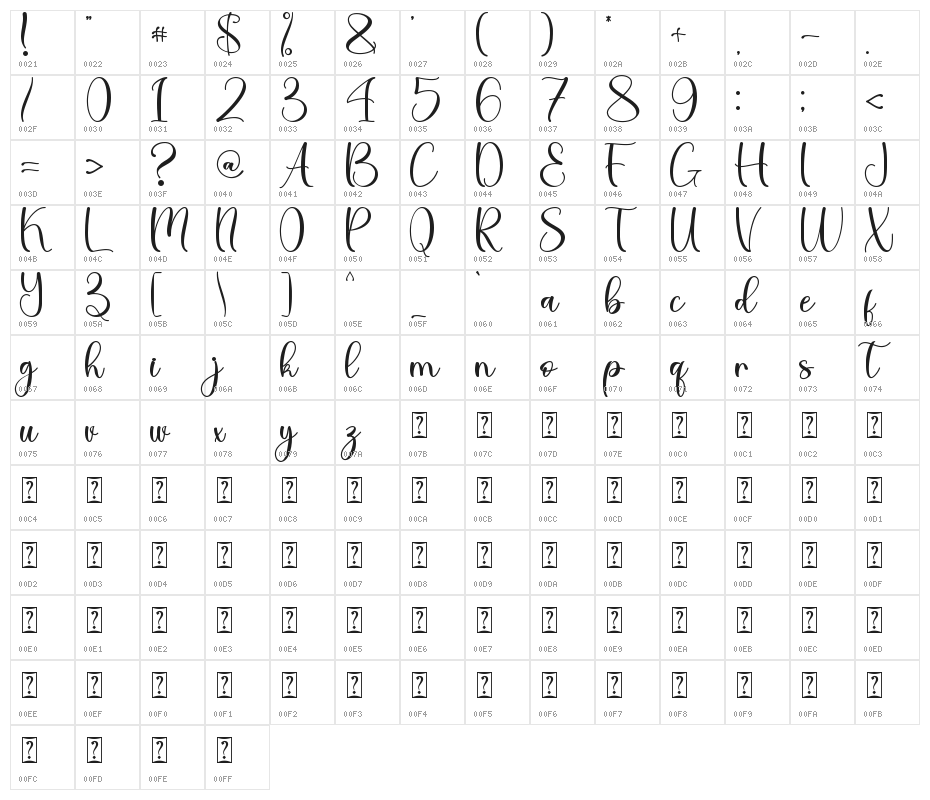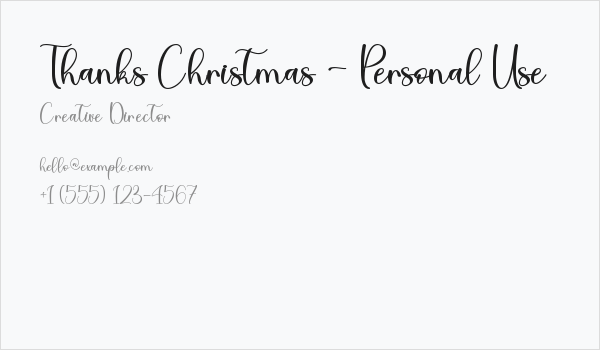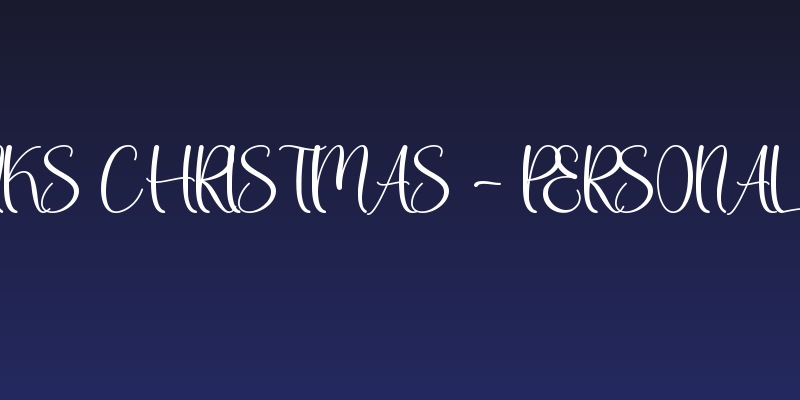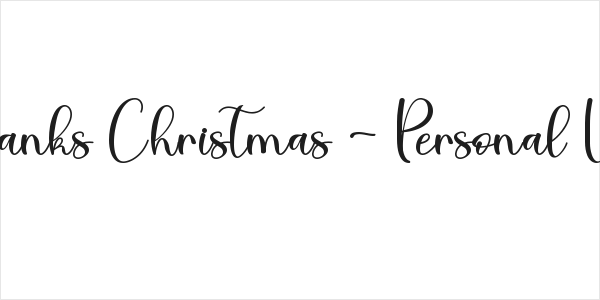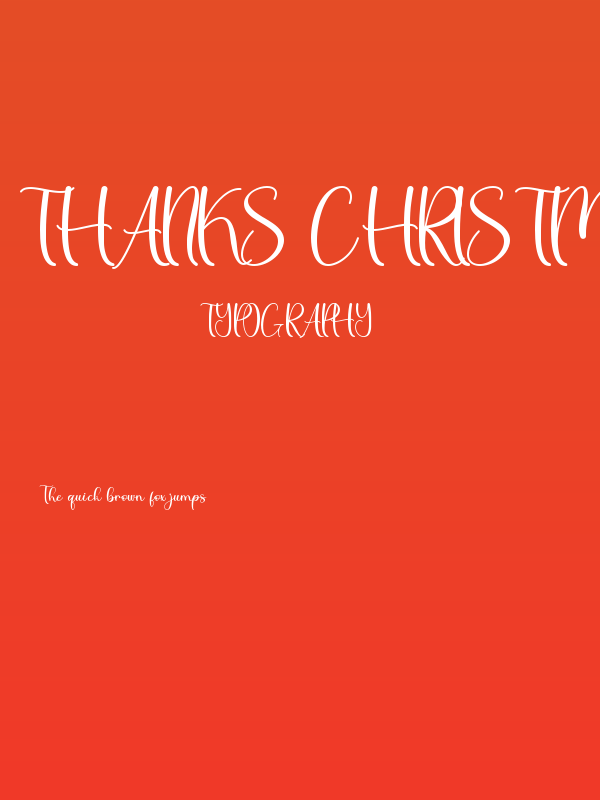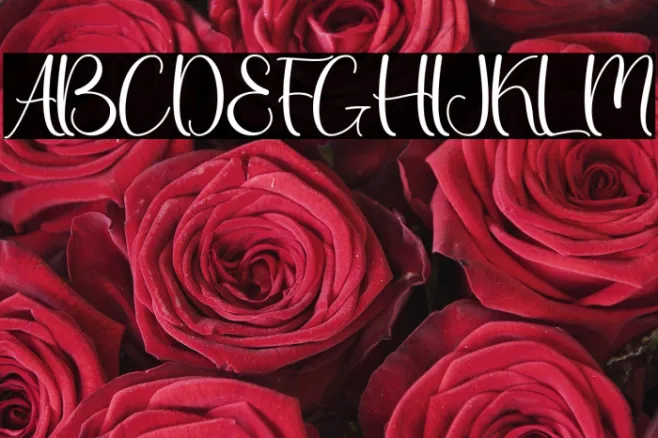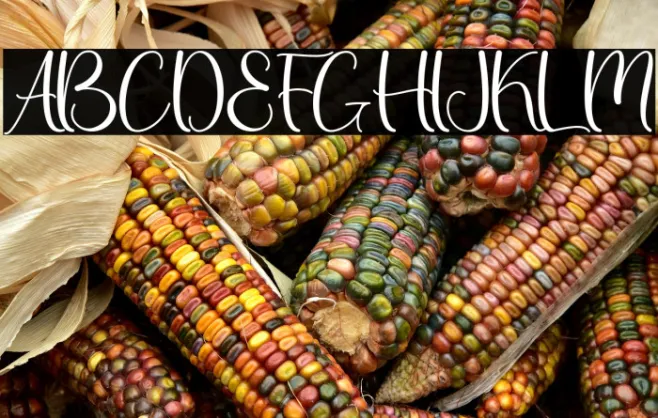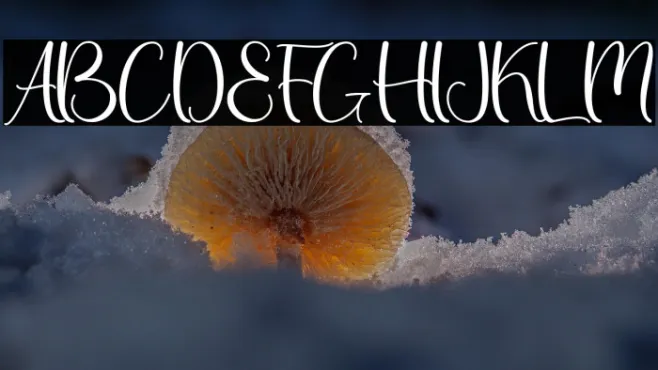
Thanks Christmas - Personal Use Font
Thanks Christmas - Personal Use Description
This font features a playful and elegant script style, characterized by its flowing, cursive letters with a mix of thin and thick strokes. The uppercase letters are tall and graceful, with sweeping curves and loops that give a sense of movement and fluidity. The lowercase letters are equally dynamic, with some characters featuring unique flourishes and swashes that add a touch of whimsy. The numerals and special characters maintain the same lively style, making them cohesive with the alphabet. Overall, this font exudes a festive and joyful vibe, perfect for creating eye-catching designs.
| Proposed Projects | Ideal for holiday cards, invitations, branding, and decorative projects where a festive and elegant touch is desired. |